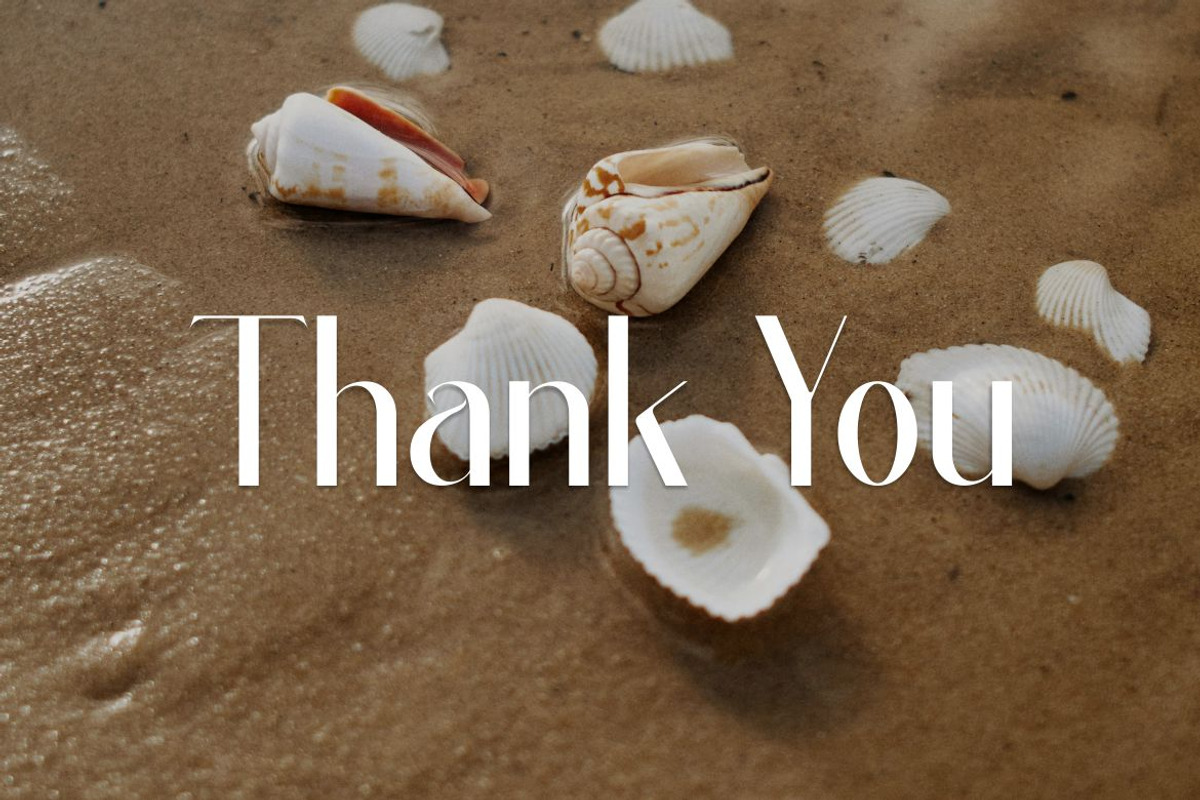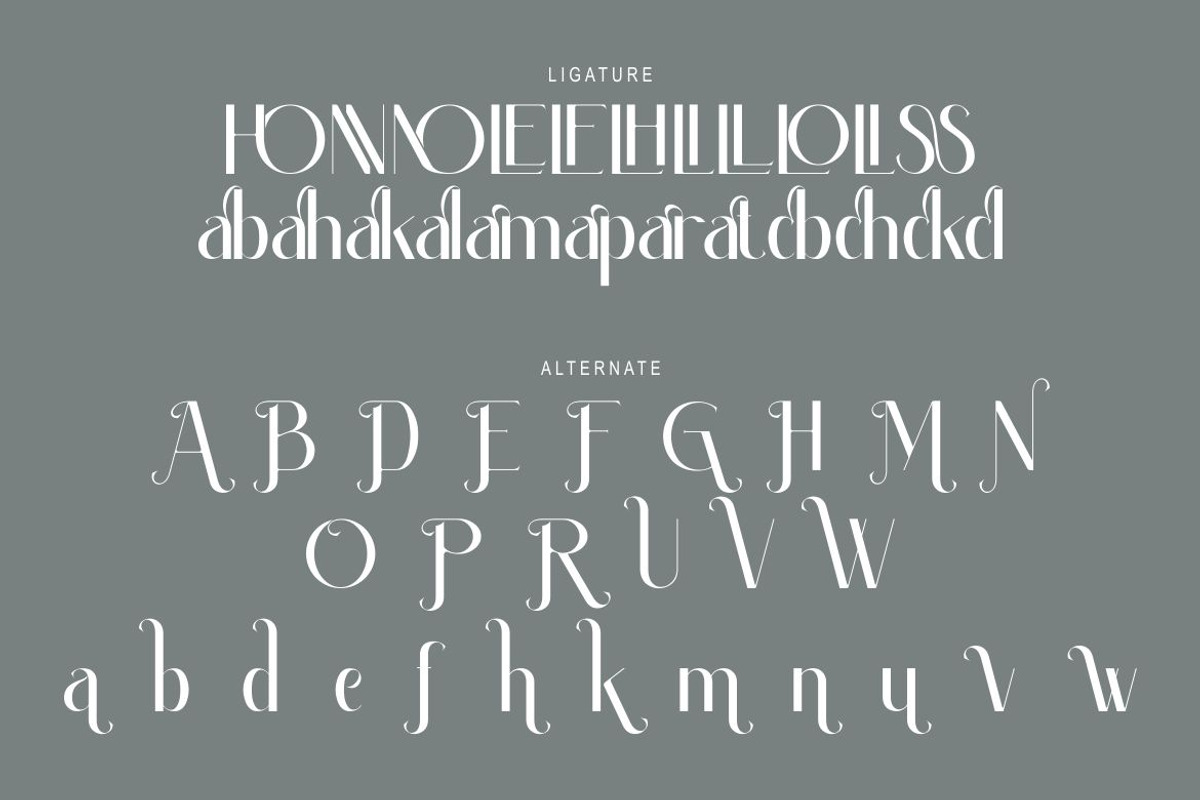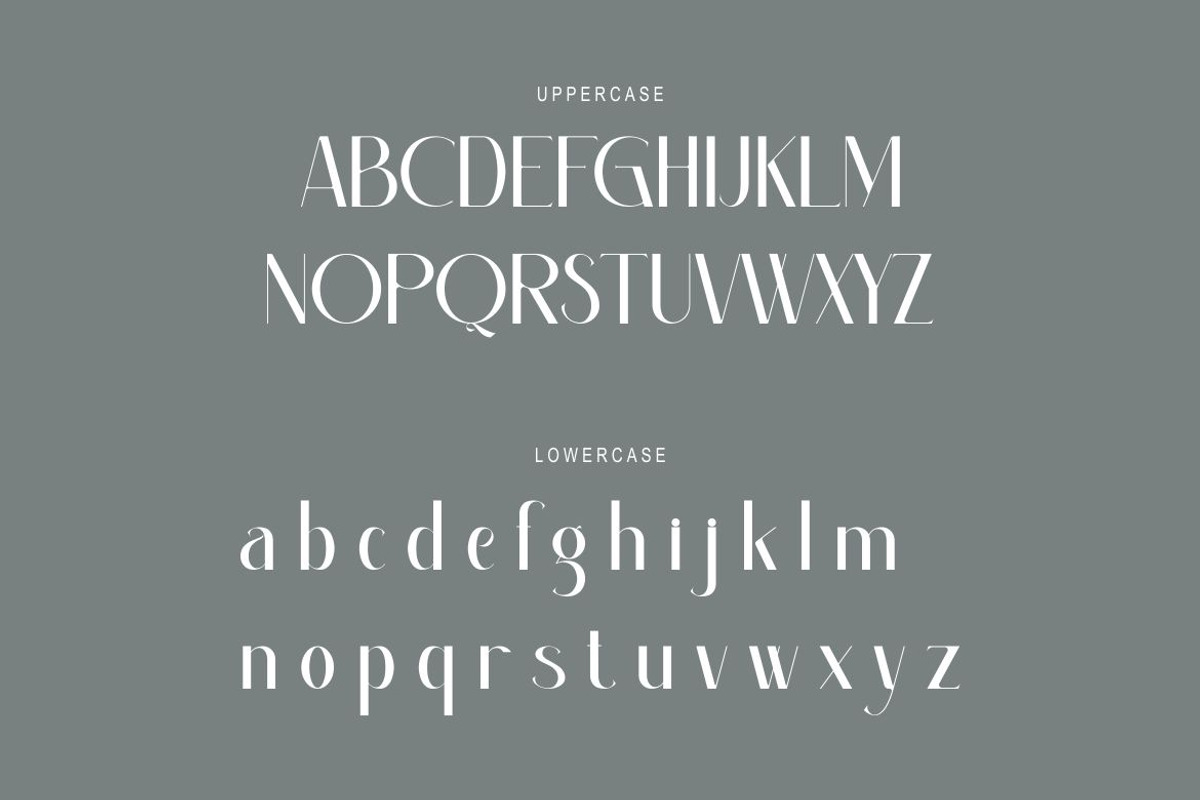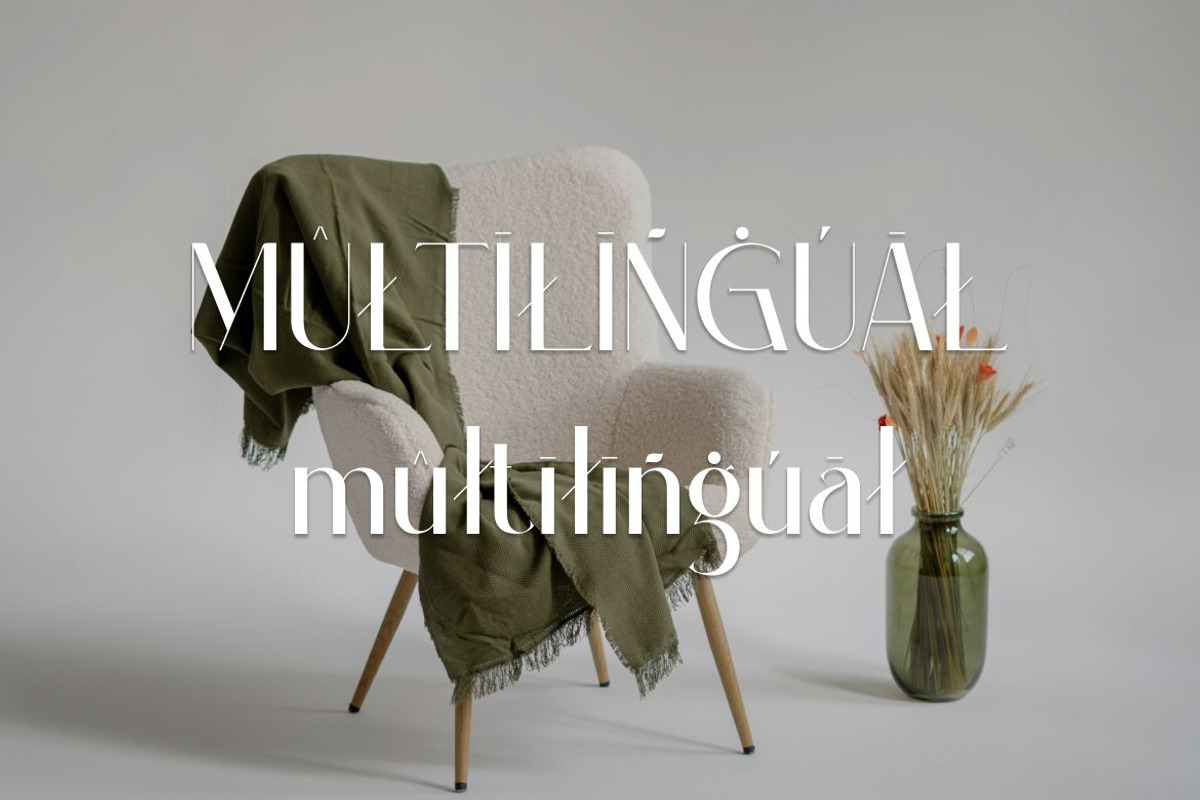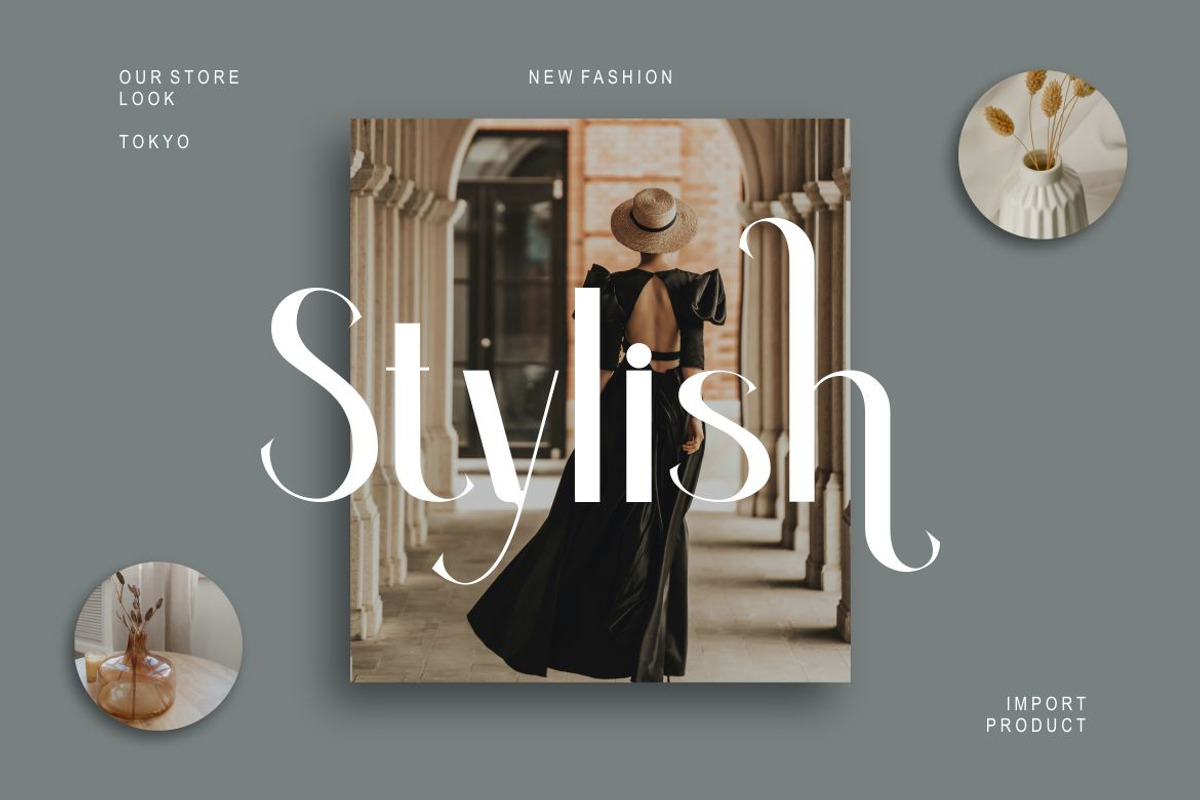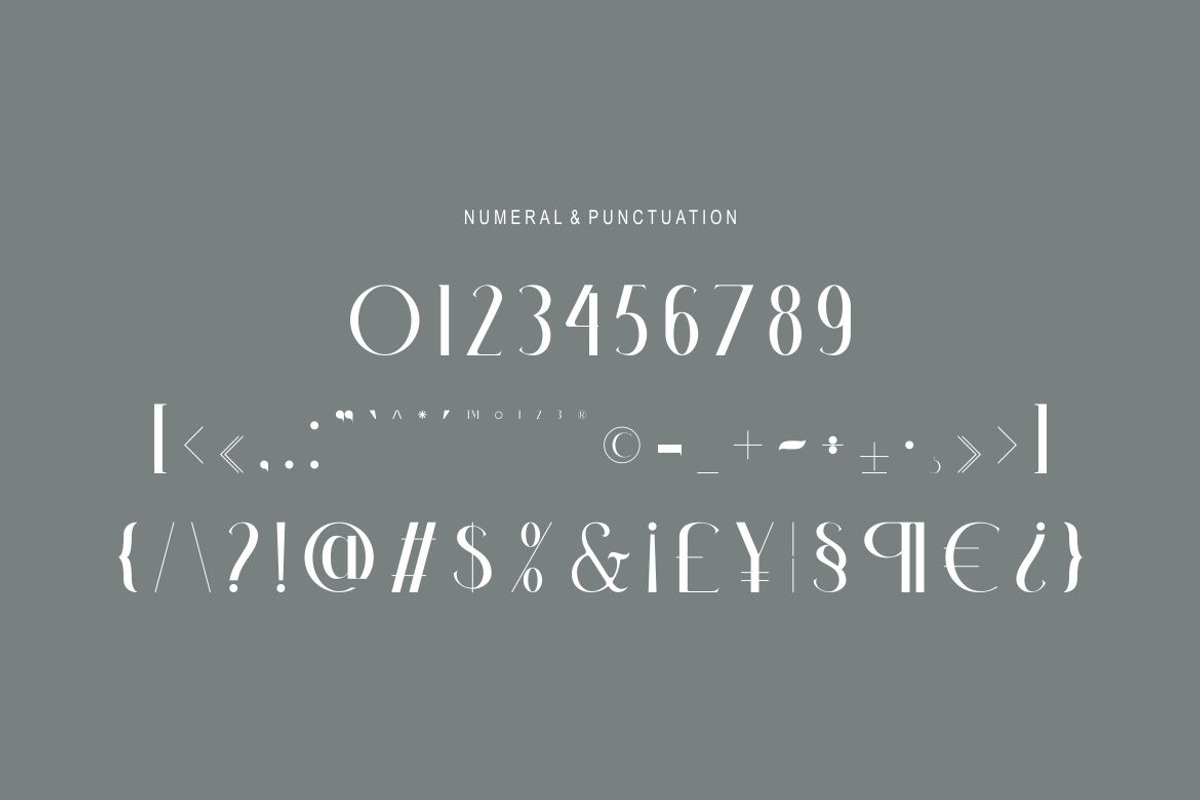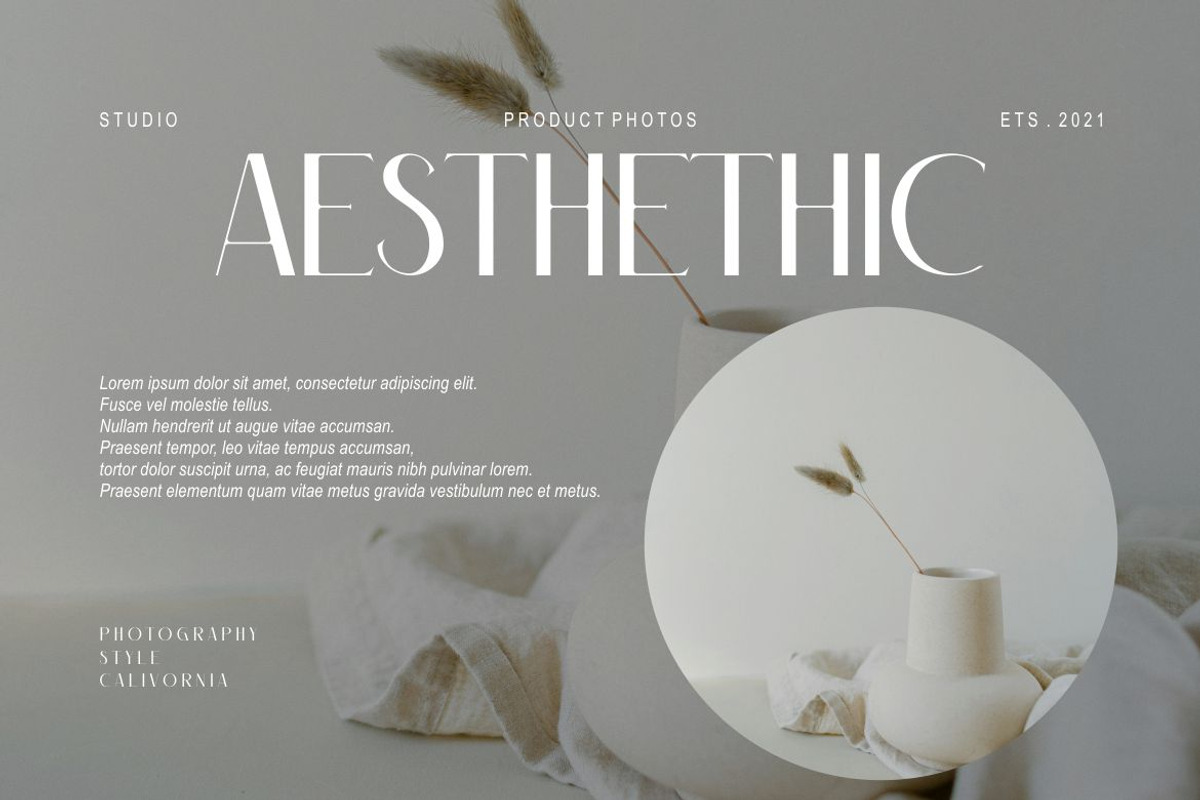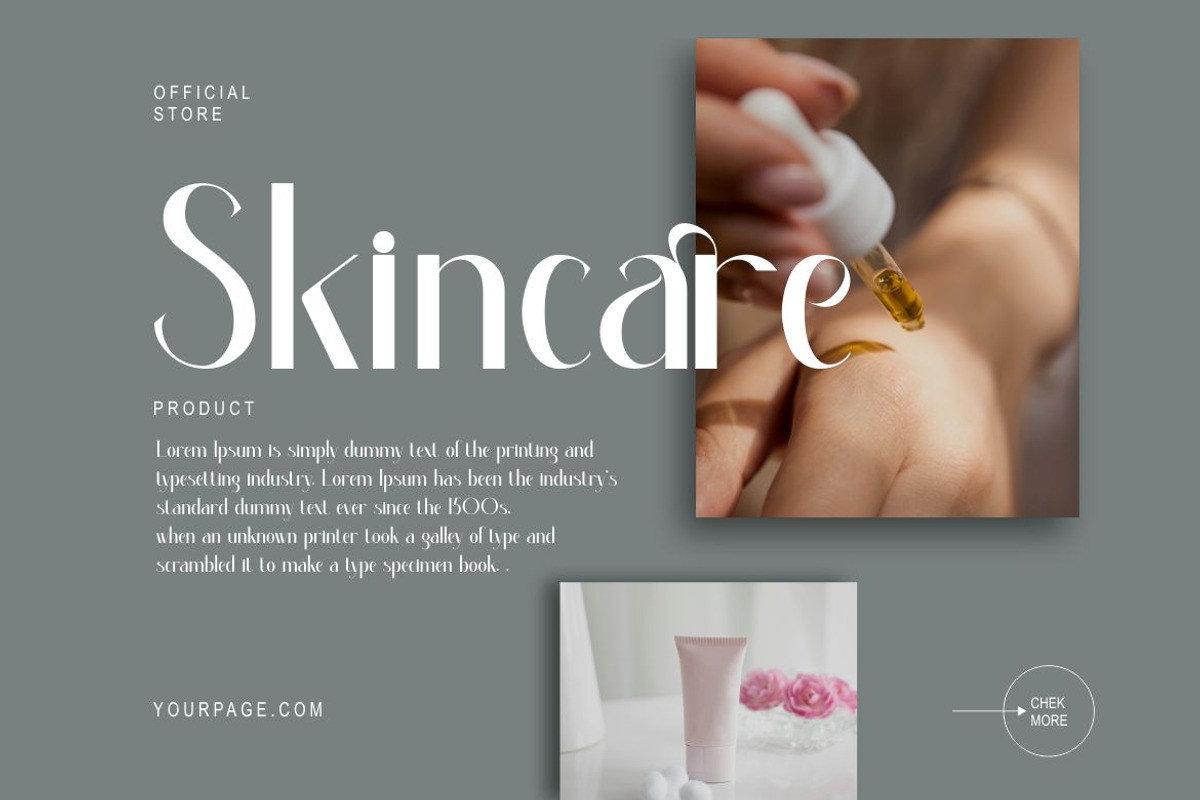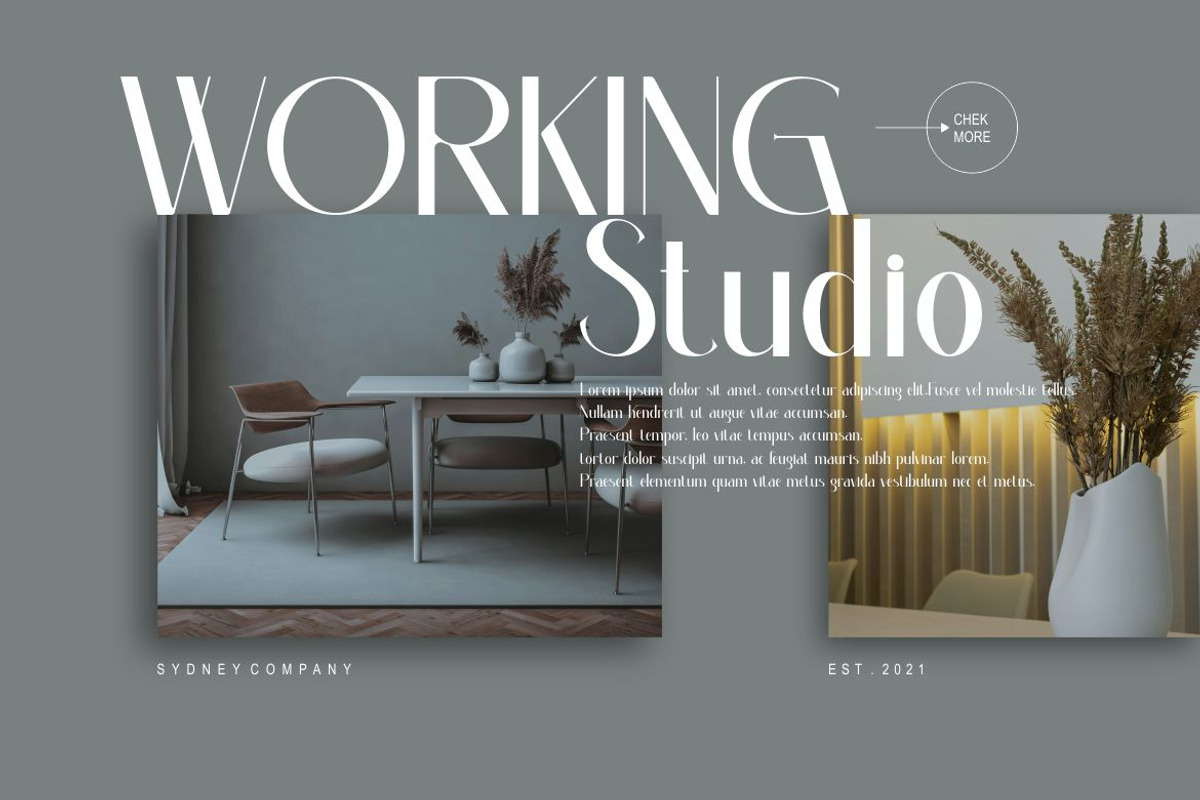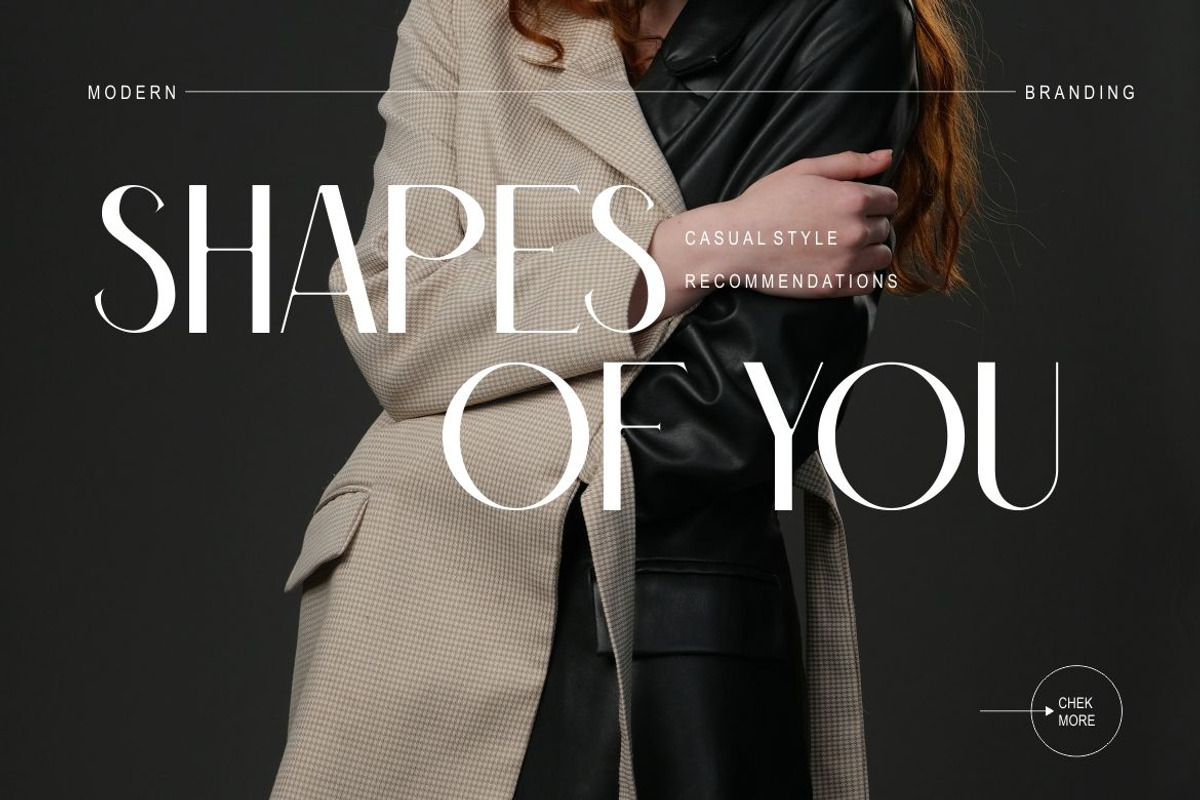
Emellda
Proudly present our new product Emellda Font
- Emellda Font is a modern and authentic font. *
- Perfect for both professional and branding needs of a product. *
- This font is suitable for any branding project like quotes, logo, blog header, poster, banding, letter, invitation, stationery, *
- etc... Designed as a versatile and flexible that can be used on a range of projects and mediums. *
- outstanding in a wide range of contexts. *